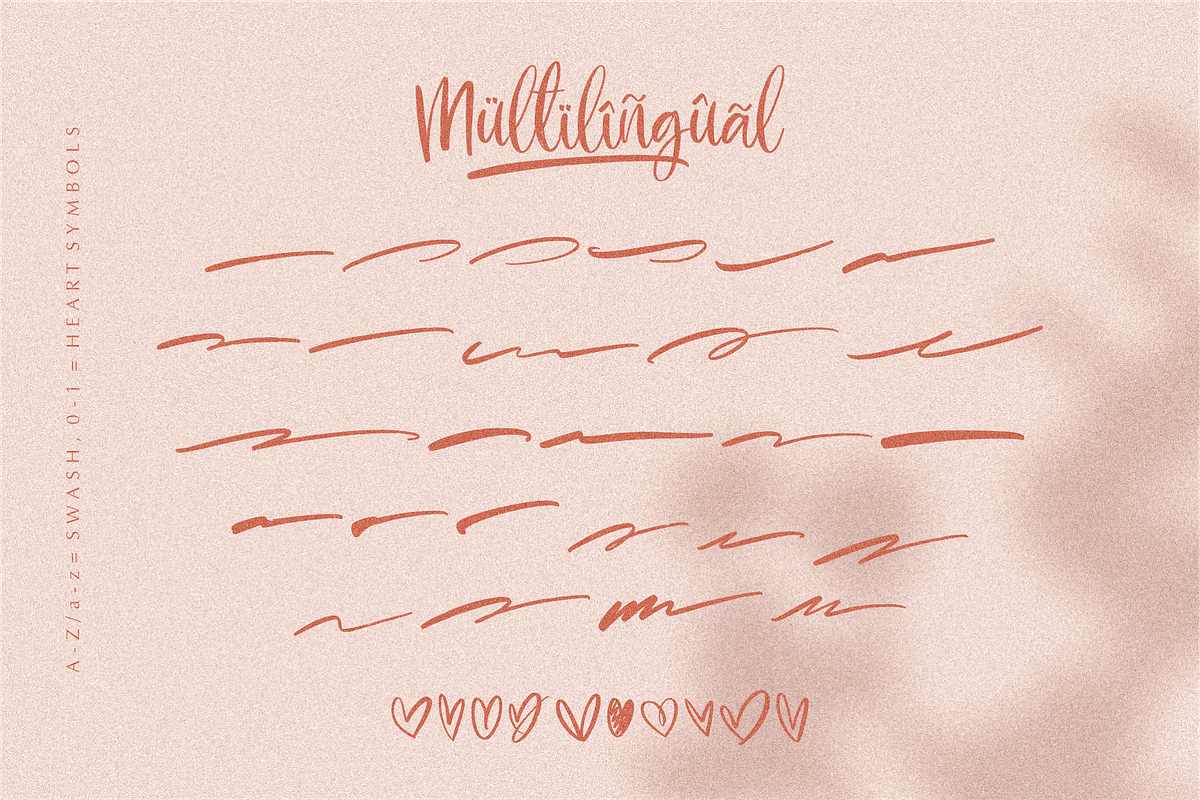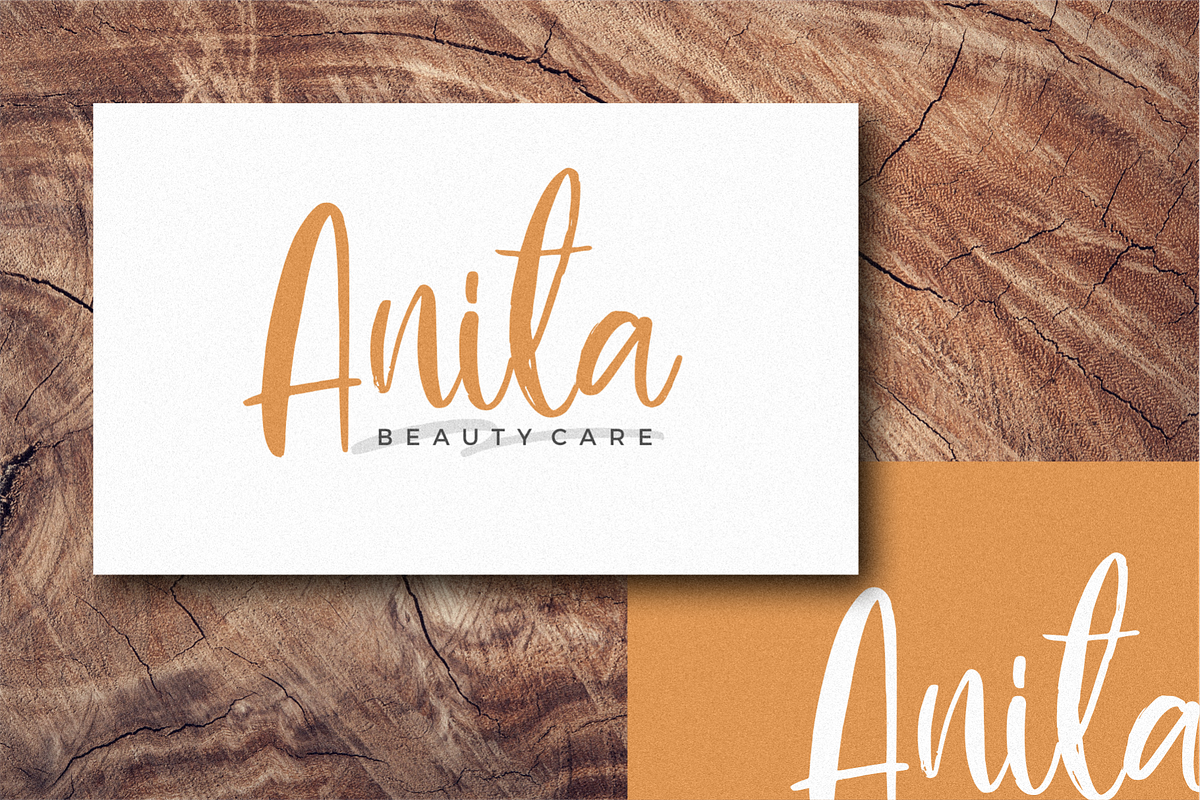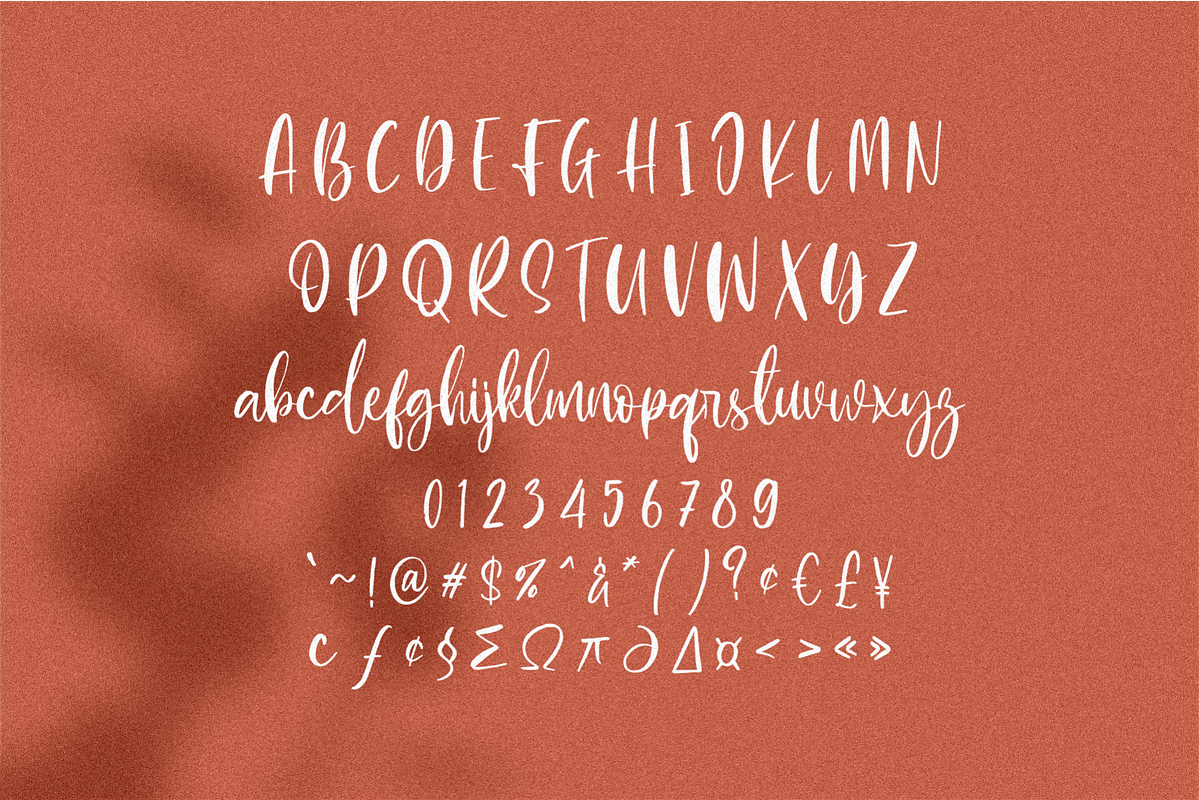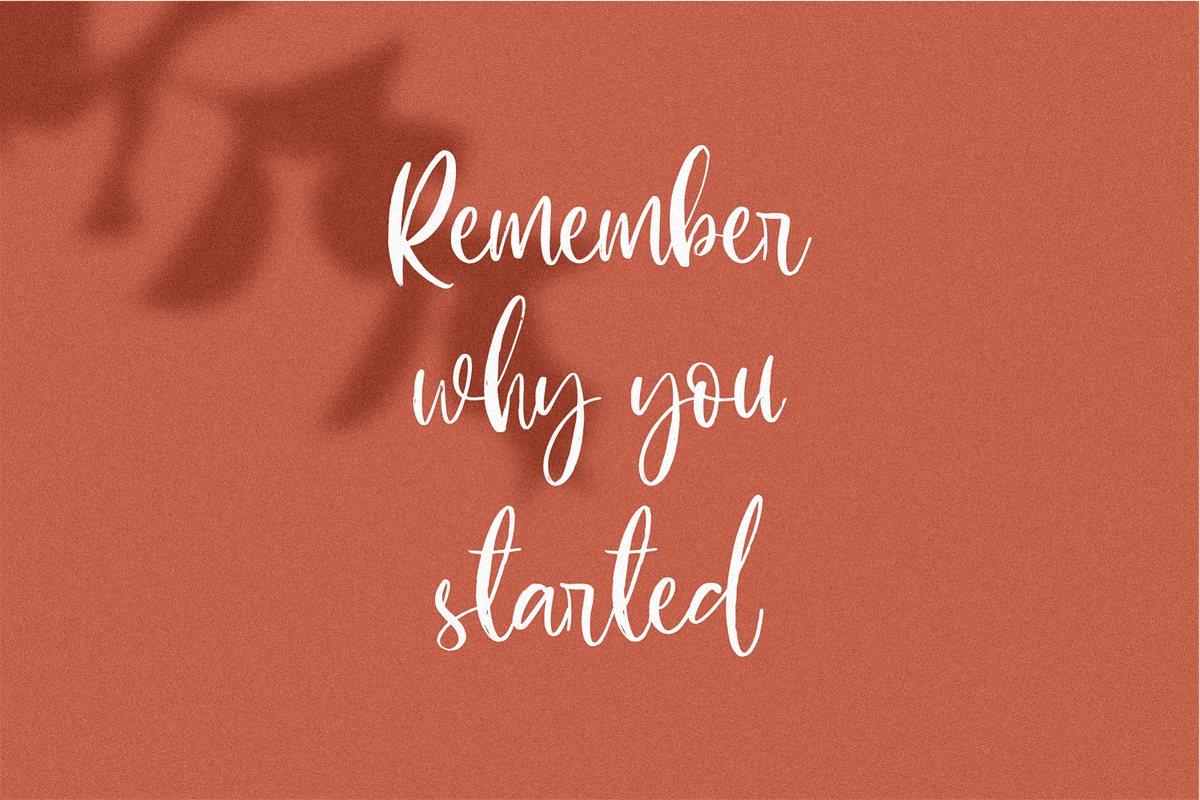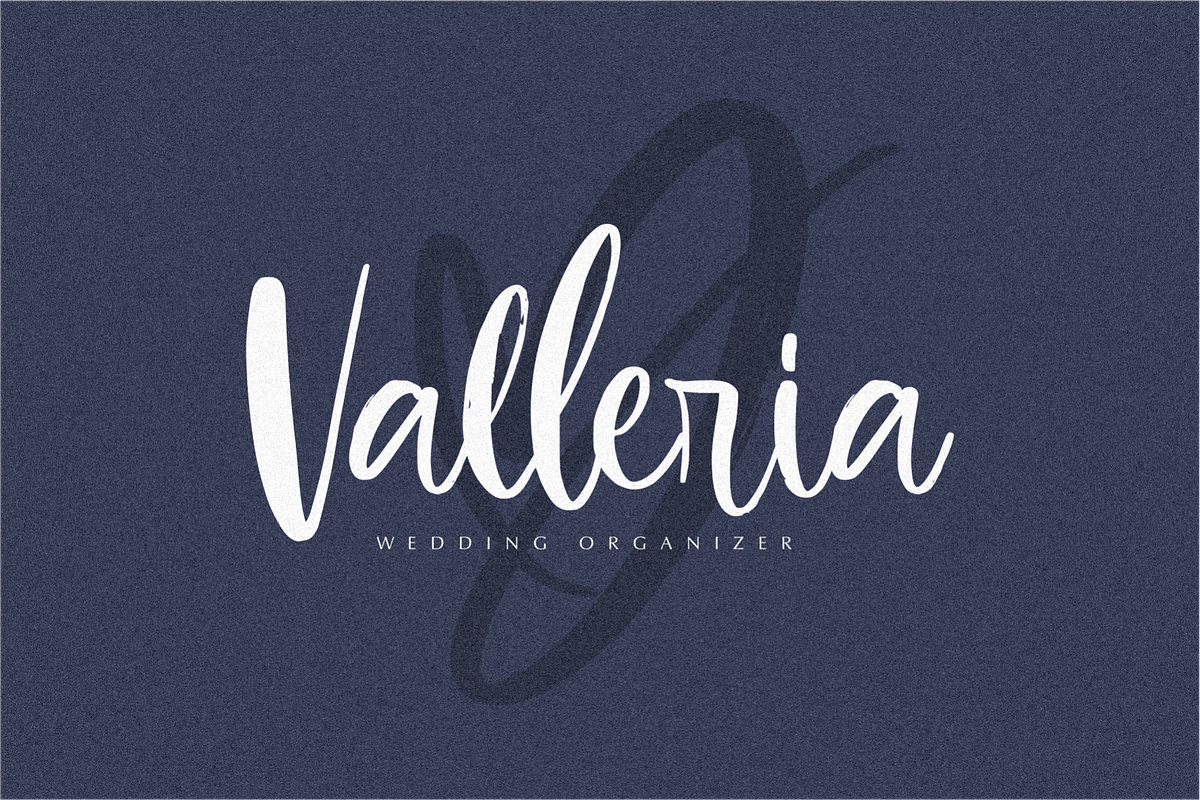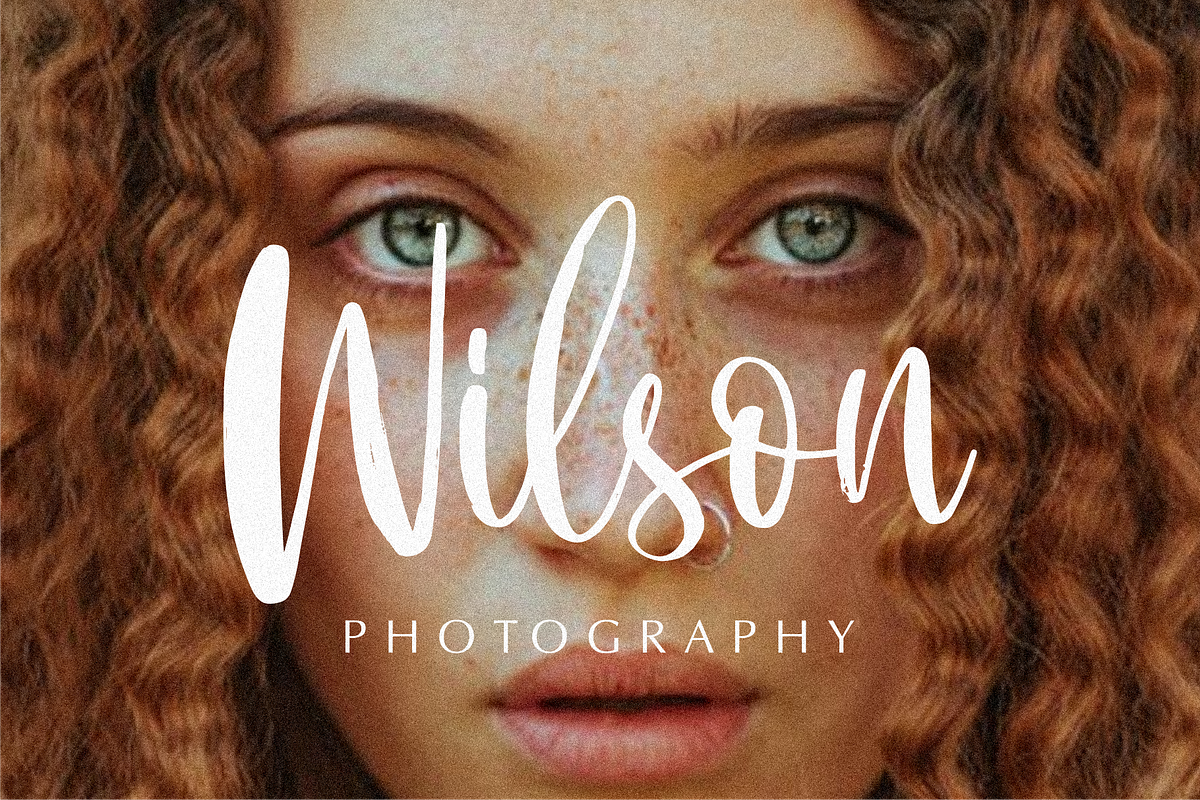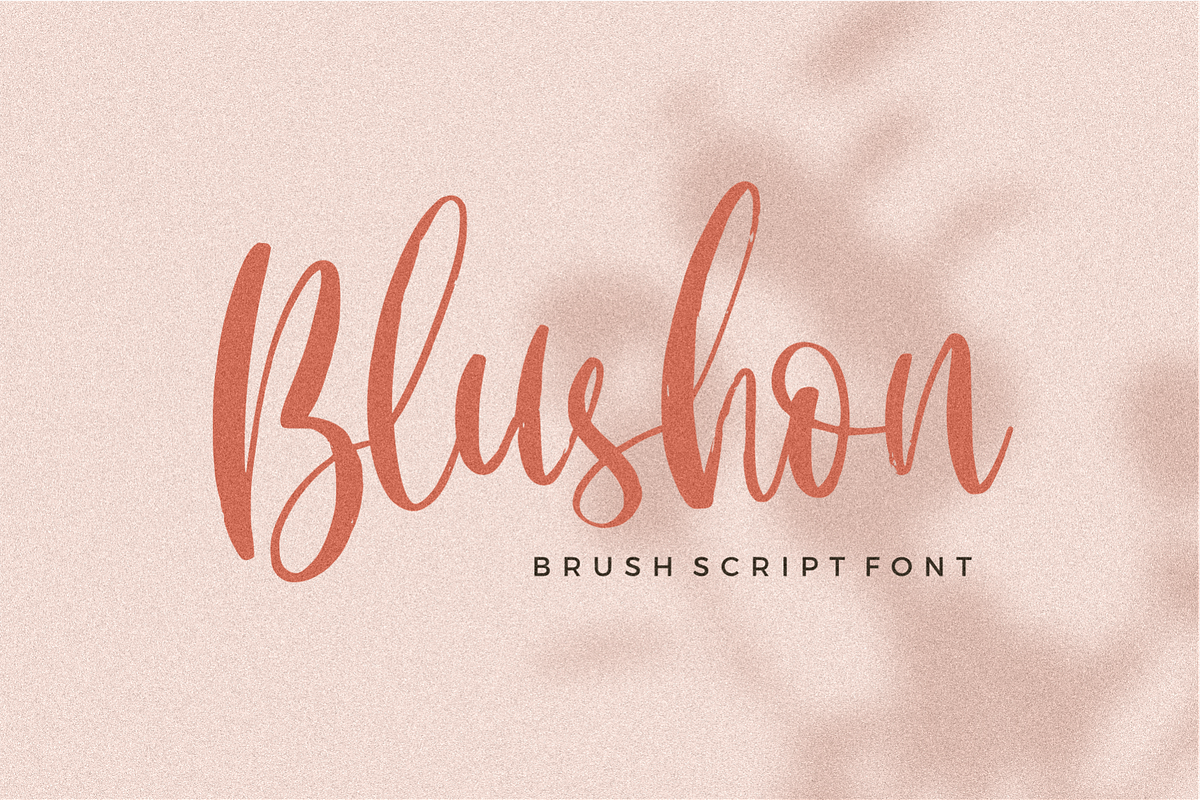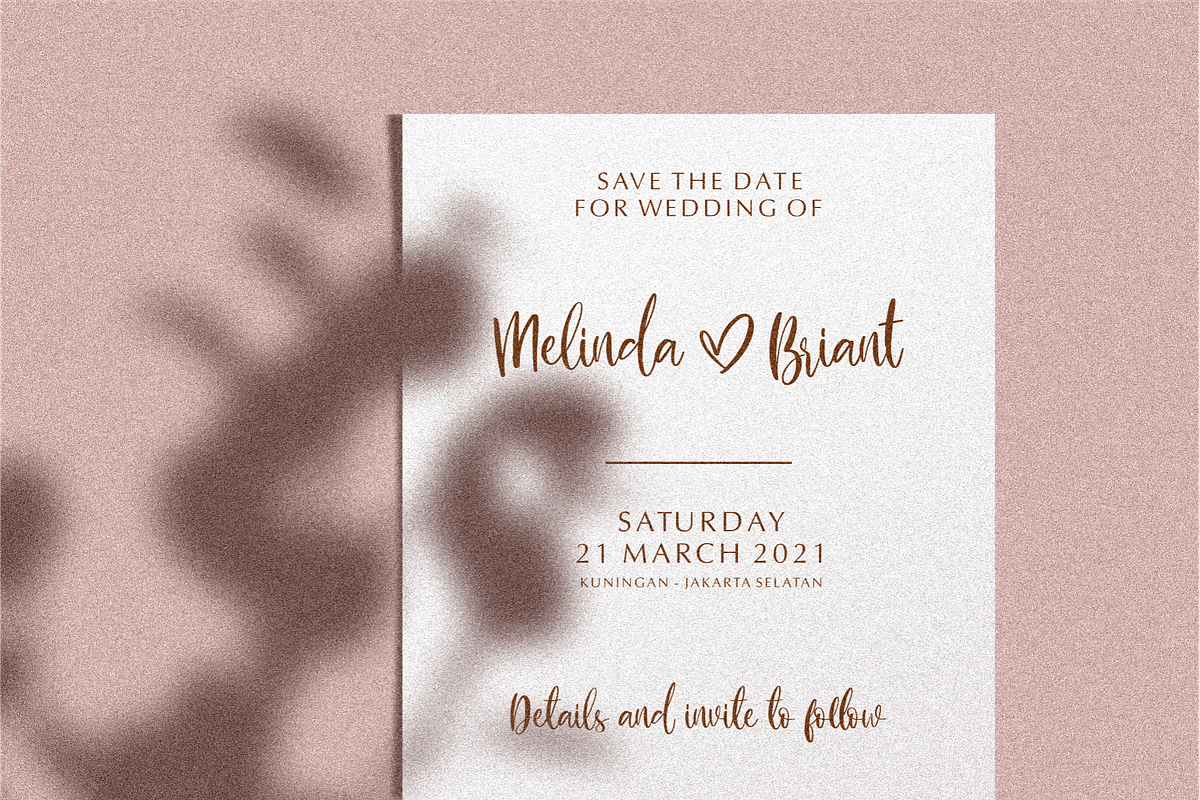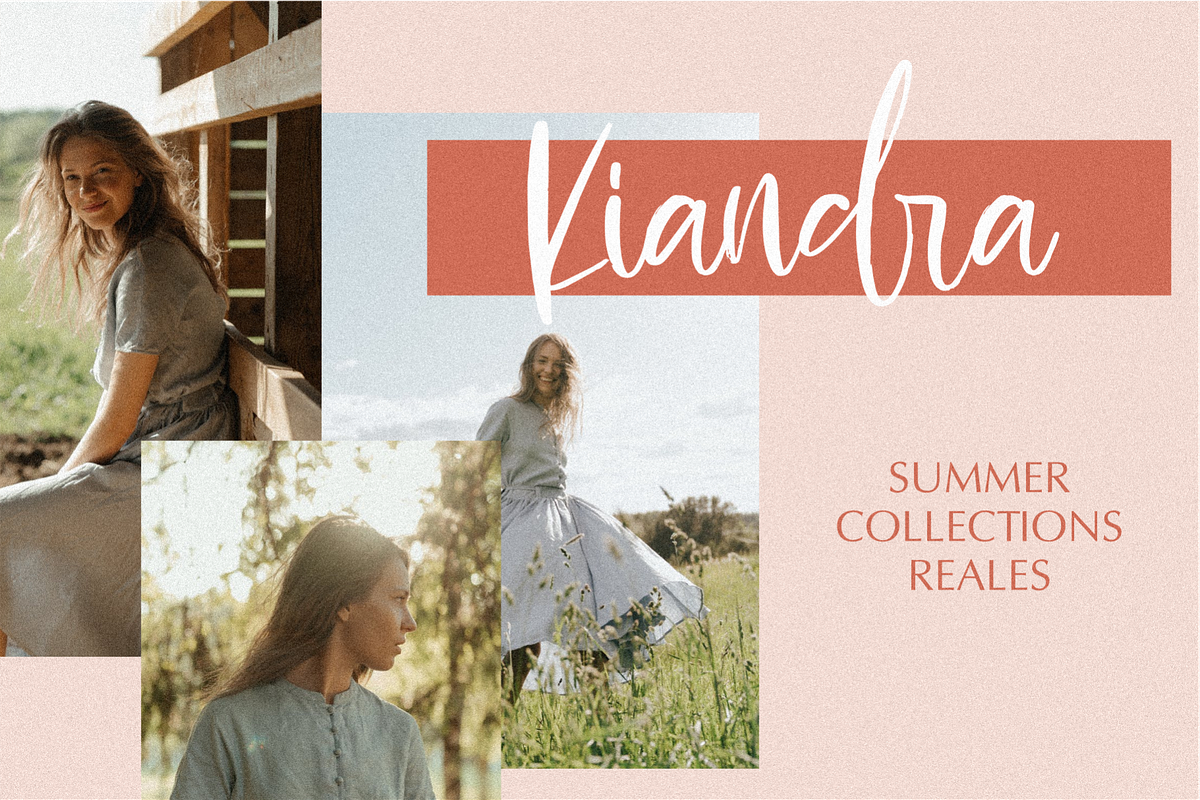
Blushon Brush Script
Blushon is a minimal brush font, in a woman's handwritten script style, suitable for cosmetic logos, wedding invitations, fashion logos, store logos and more.